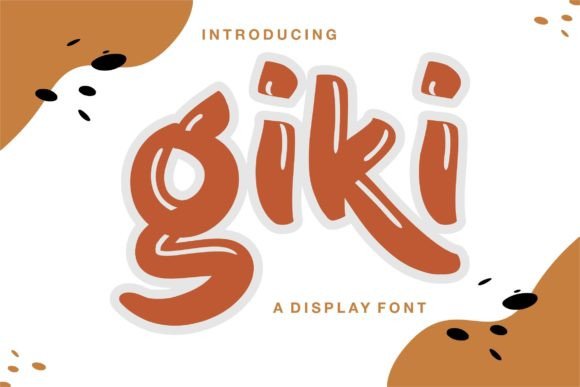
Introduce yourself to Giki Font, a bold and modern display font with a sparkling shine, ready to transform your designs into captivating works of art. Crafted by the skilled hands of Vunira, Giki Font belongs to the distinguished display font family, renowned for its ability to command attention and leave a lasting impression.
Giki Font is not just a font; it's an experience that will ignite your creativity and unleash your inner artist. Its striking lines and dynamic curves dance across the page, creating a visual symphony that captivates the eyes and stirs the emotions. Whether you're designing invitations, greeting cards, branding materials, business cards, quotes, or posters, Giki Font will elevate your creations to new heights of sophistication and style.
Imagine your designs adorned with the brilliance of Giki Font, where each letter radiates with personality and panache. Its bold presence will make your words leap off the page, demanding attention and leaving an indelible mark on your audience. Giki Font is more than just a font; it's a statement piece that reflects your unique style and discerning taste.
With Giki Font, you'll discover a world of endless possibilities, where every design becomes a masterpiece. Its versatility knows no bounds, allowing you to experiment with different colors, textures, and layouts until you achieve a look that's uniquely yours. Giki Font is your passport to a world of creative freedom, where your imagination is the only limit.
Don't settle for ordinary fonts that blend into the background. Embrace the brilliance of Giki Font and let your designs shine brighter than ever before. Let your creativity soar and embark on a journey of visual exploration where every project becomes a testament to your artistic prowess.
Giki Font is more than just a font; it's an investment in your creative future. It's a tool that will empower you to create designs that captivate, inspire, and leave a lasting impression on all who see them. Experience the transformative power of Giki Font today and unlock the full potential of your creative genius.